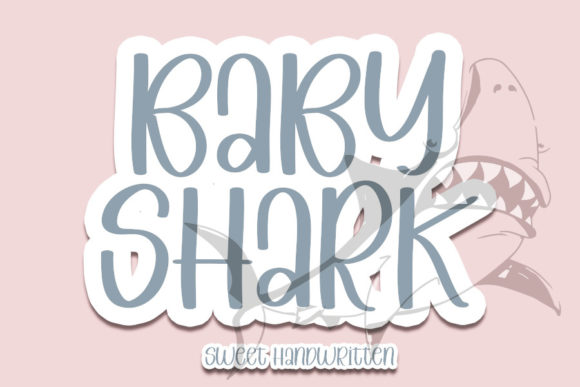
Welcome to the world of Baby Shark Font, a delightful creation by K_IN Studio that is perfect for adding a touch of playful charm to your wedding designs. This script font boasts an irresistible handwritten style that will make your wedding invitations, save-the-date cards, and other wedding stationery truly special.
Imagine your wedding guests' delight as they receive invitations adorned with the cheerful strokes of Baby Shark Font. Its friendly and joyful nature will instantly spread happiness and excitement, setting the tone for your joyous occasion. The whimsical and slightly quirky character of this font adds a unique touch that will make your wedding stationery stand out from the rest.
With Baby Shark Font, you can easily create stunning designs that reflect your personal style and the joyful spirit of your upcoming celebration. Let this font be your creative companion as you bring your wedding vision to life. Its versatility allows you to use it in various applications, from printed materials to digital designs.
Unleash your creativity and let Baby Shark Font guide you in crafting truly captivating wedding stationery. Its heartwarming charm will captivate your guests, leaving a lasting impression that will be cherished for years to come. Embrace the magic of this delightful font and make your wedding day truly unforgettable.